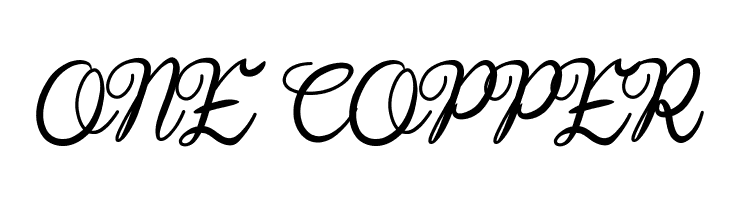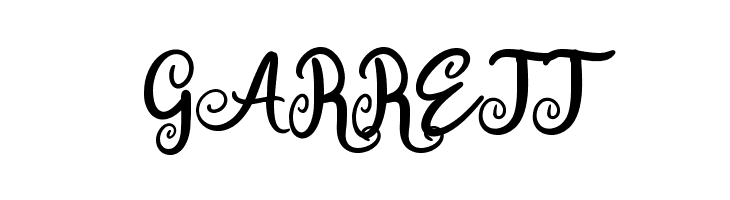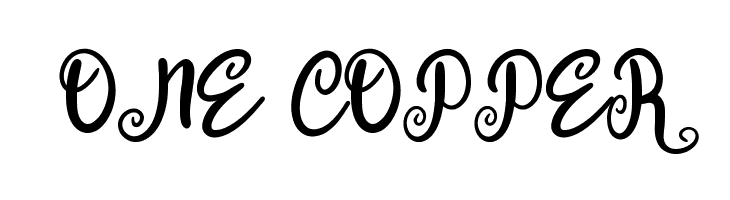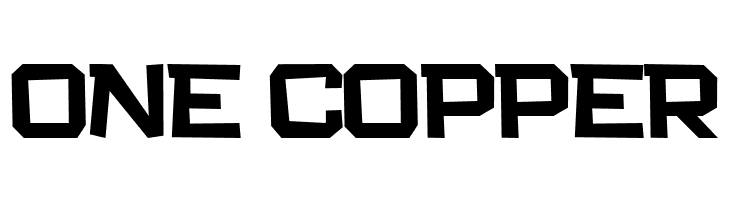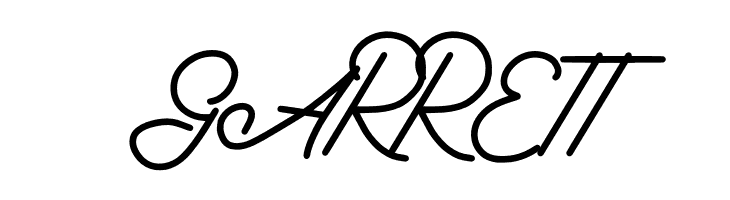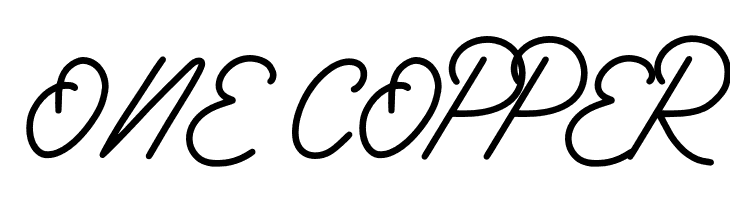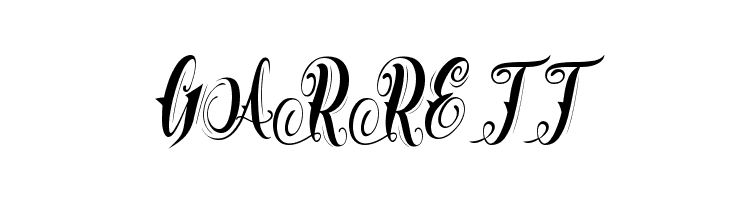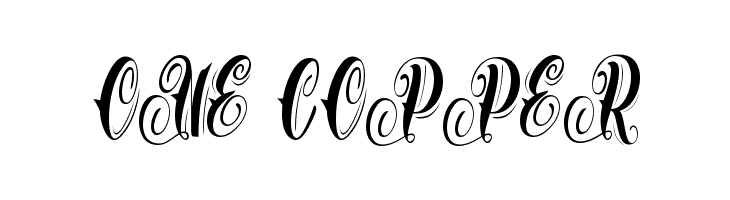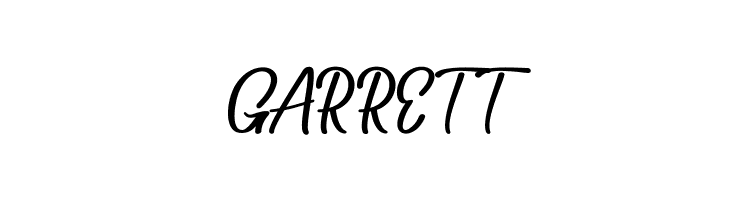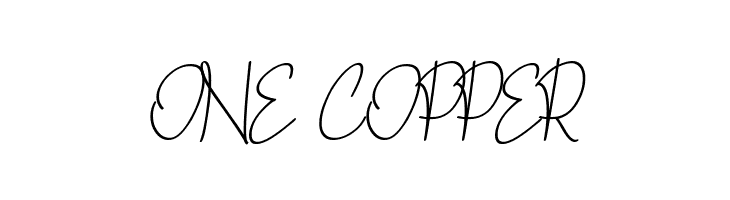
A playful, rounded font with smooth curves and a friendly appearance.
A playful, textured font with a hand-drawn, sketch-like style.
A modern, elegant script font with flowing strokes and bold numerals.
A dynamic and elegant script font with bold lowercase letters and flowing uppercase characters.
A decorative script font with elegant swirls and flourishes.
A playful and whimsical script font with decorative swirls and interconnected letters.
A playful and whimsical script font with decorative flourishes.
A graceful script font with elegant loops and smooth connections.
A playful and elegant script font with flowing, cursive letters.
A playful, handwritten font with uneven strokes and a whimsical style.
A playful and elegant script font with flowing cursive letters.
A bold, expressive brush-style font with dynamic, hand-painted strokes.
A bold, dynamic script font with a handwritten appearance.
A casual, handwritten font with a playful and informal style.
A bold, gothic-inspired font with sharp, angular edges and dramatic flourishes.
A dynamic and elegant script font with flowing cursive letterforms.
A flowing, cursive script font with elegant, handwritten characteristics.
A modern script font with elegant, flowing lines and high contrast.
A graceful script font with fluid, connected strokes and a natural handwriting style.
A flowing, cursive script font with elegant loops and swashes.
A lively and elegant script font with flowing, connected letterforms.
A playful and elegant script font with fluid, connected strokes.
A graceful script font with elegant swirls and loops, perfect for sophisticated designs.
A graceful script font with flowing, cursive letters and elegant loops.
An elegant script font with intricate swirls and flowing cursive style.
A flowing, cursive script font with elegant, elongated letters and a natural handwriting style.
A lively and elegant script font with flowing, interconnected letterforms.